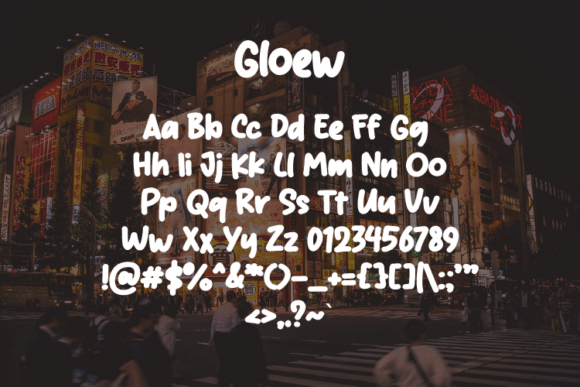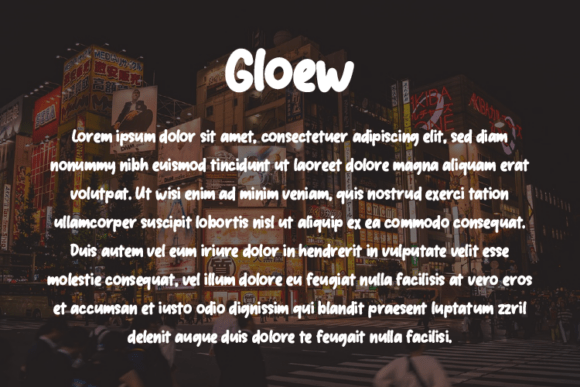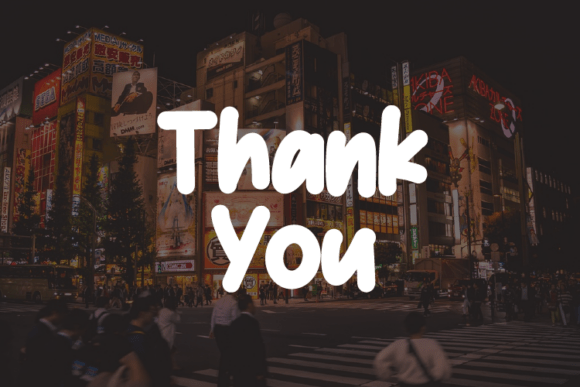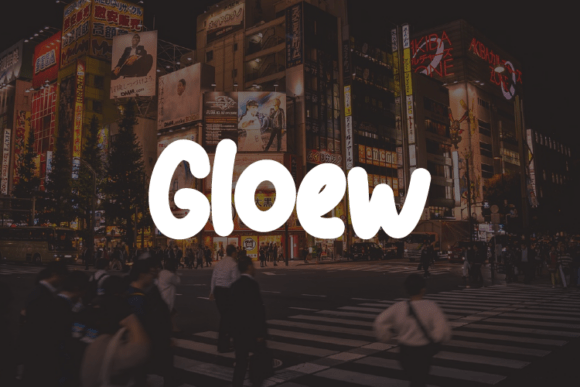
Introduction to Gloew Font
Gloew is a modern and elegant typeface designed for flexibility and excellent readability across a wide range of media.
Key Features of Gloew Font
Why Choose Gloew Font?
Gloew Font offers exceptional quality and versatility, making it a valuable addition to your design toolkit. Whether you’re creating for personal projects or commercial use, Gloew Font delivers professional results.